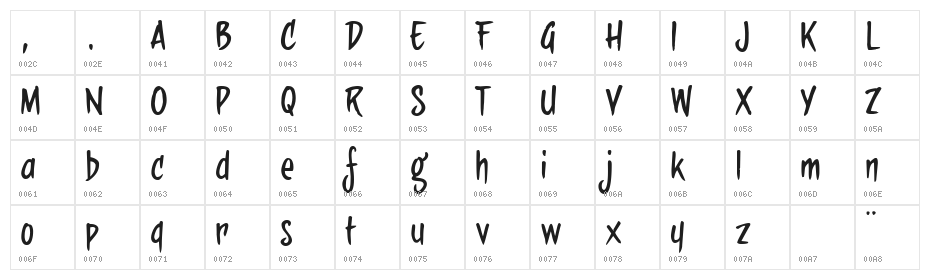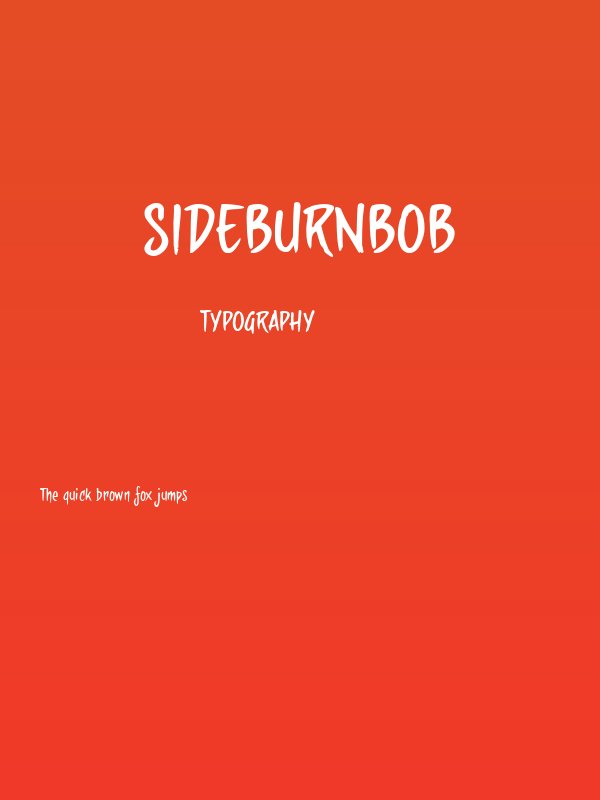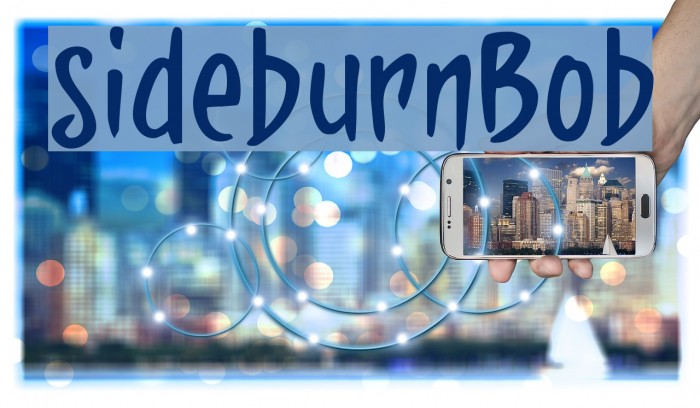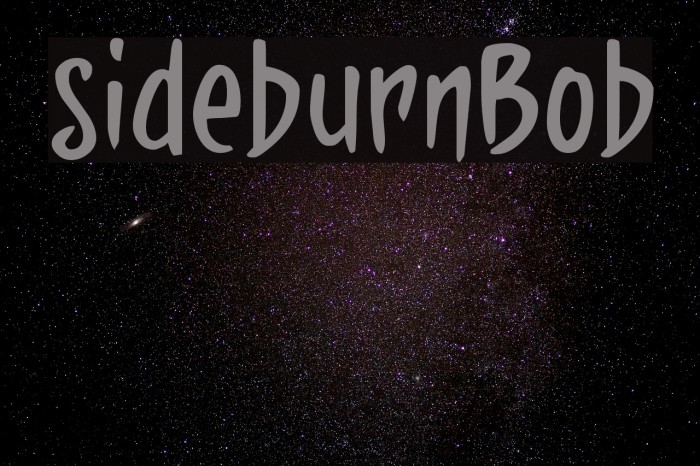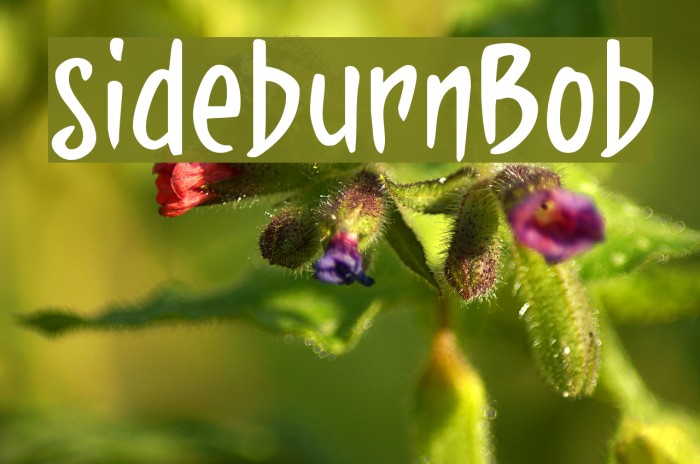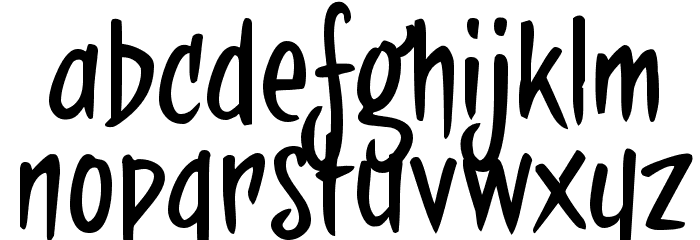
sideburnBob Font
sideburnBob Description
This font features a bold, handwritten style with a playful and energetic appearance. The uppercase letters are slightly slanted, giving a dynamic feel, while the lowercase letters maintain a consistent flow with rounded edges. The strokes are thick and uniform, contributing to a strong visual impact. The overall design is casual yet expressive, making it suitable for creative projects. The characters are well-spaced, ensuring readability even at smaller sizes. This font lacks special characters, focusing on the alphabet and numbers, which are consistent with the handwritten theme.
| Proposed Projects | Ideal for posters, greeting cards, social media graphics, and branding projects that require a personal touch. |